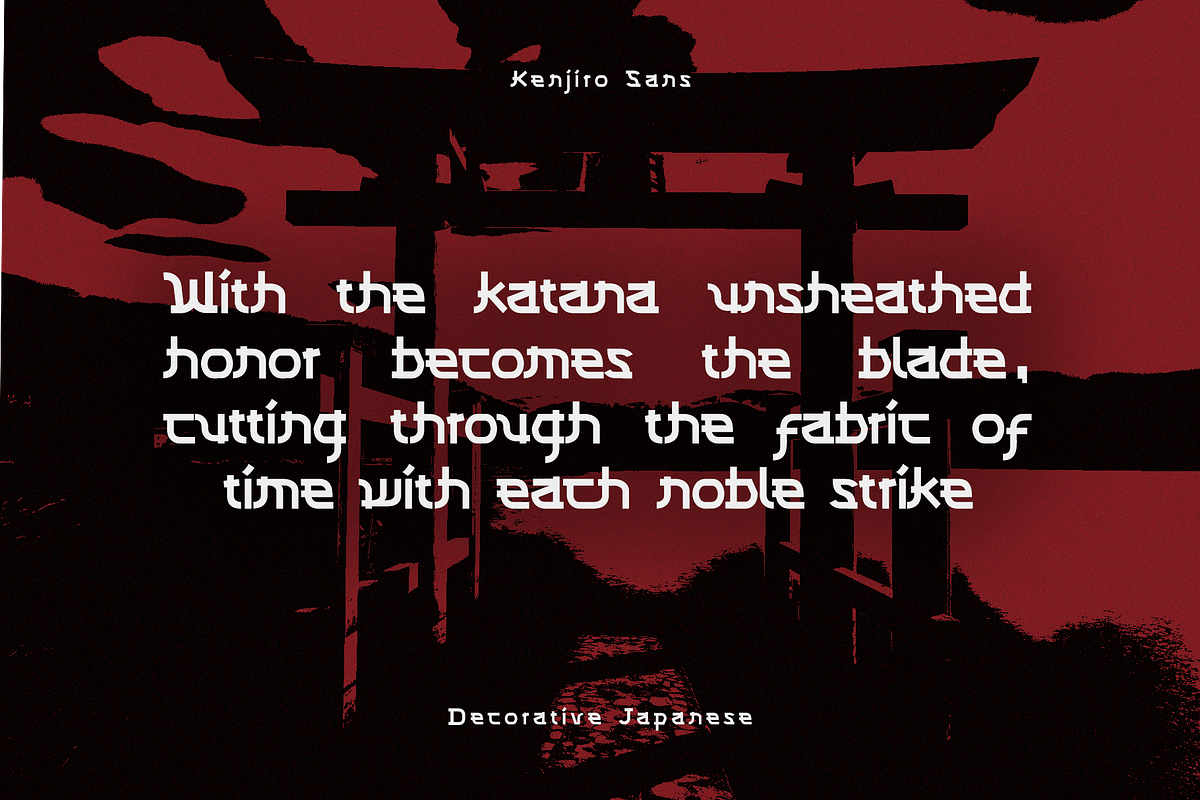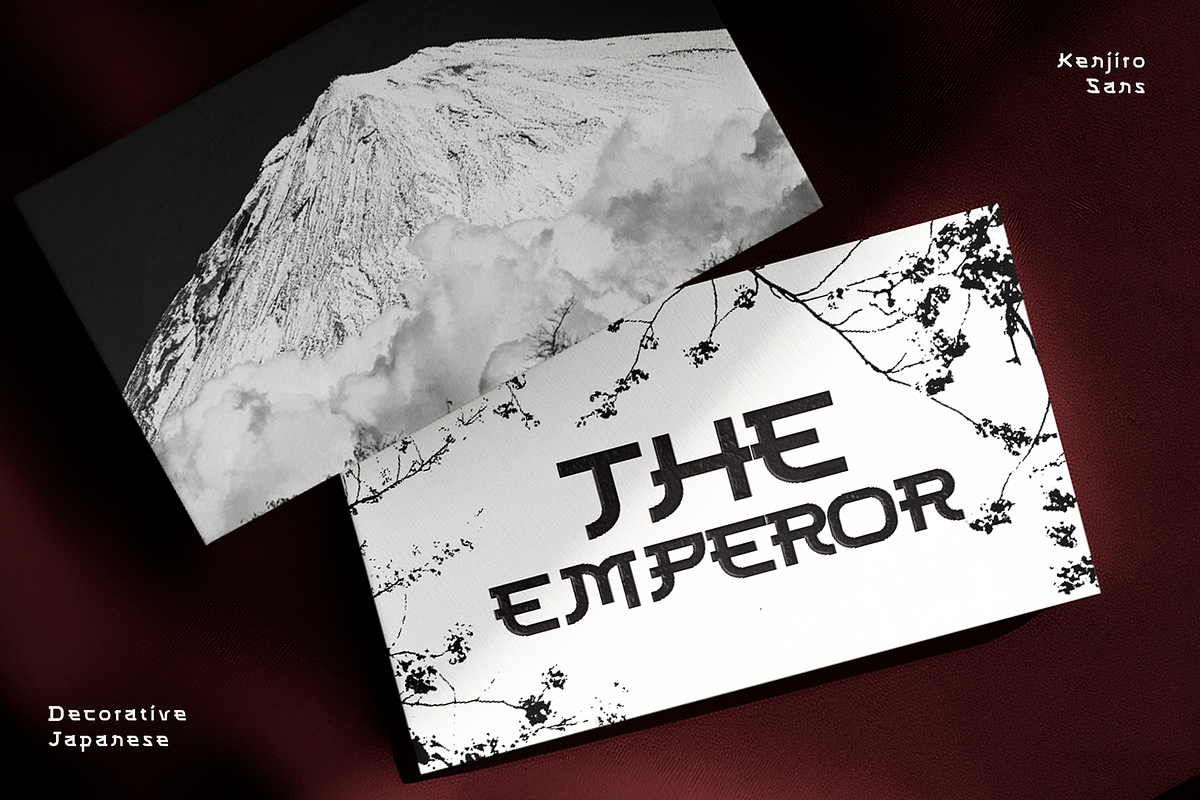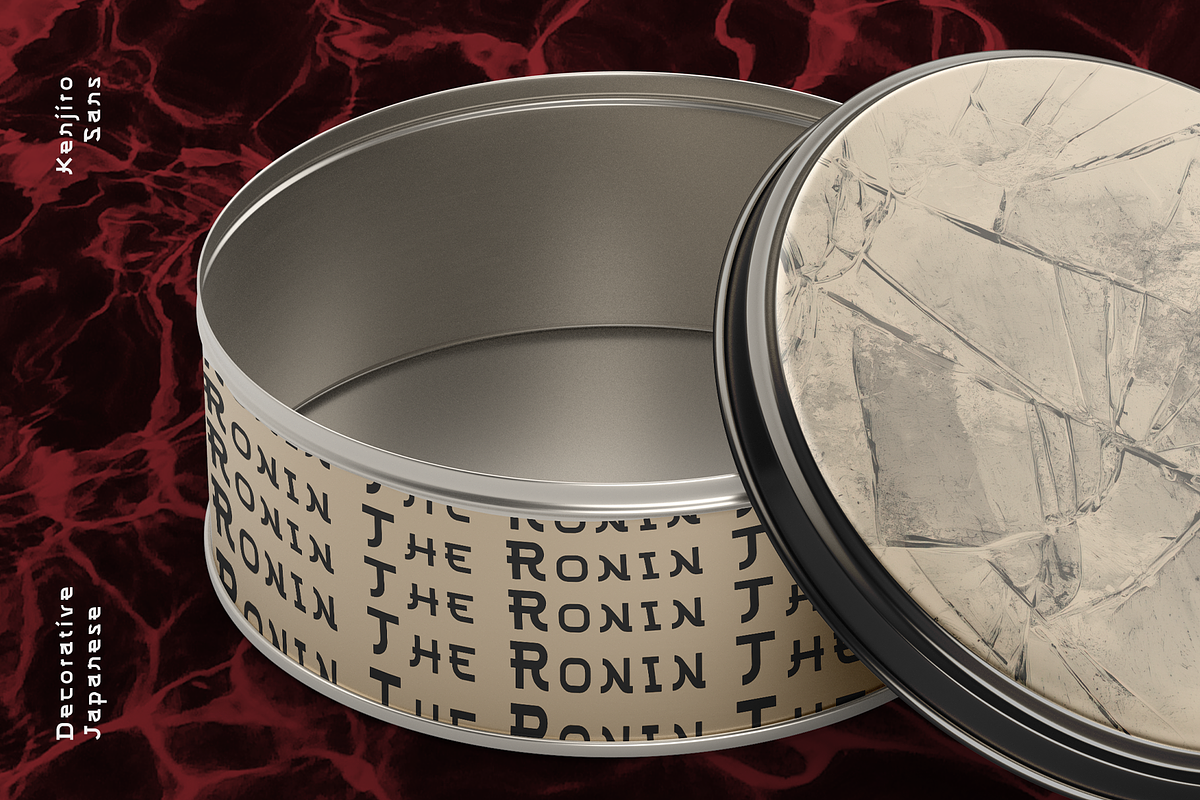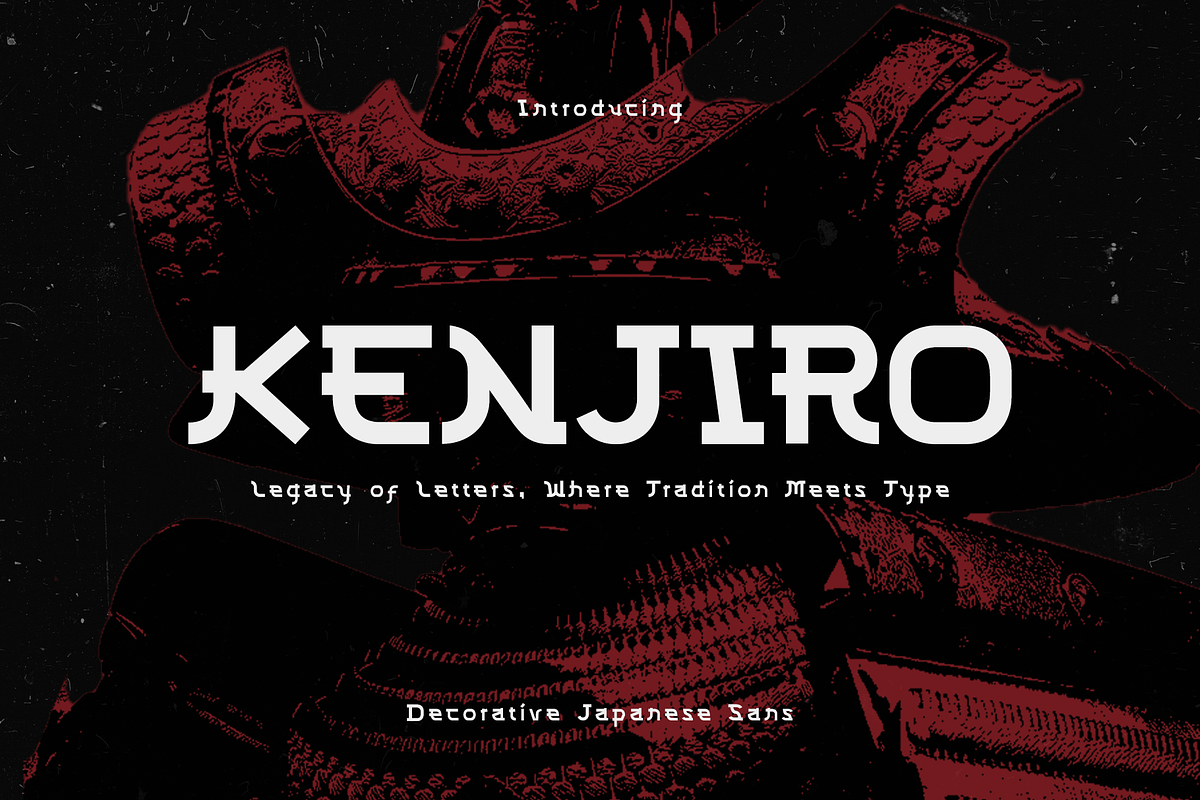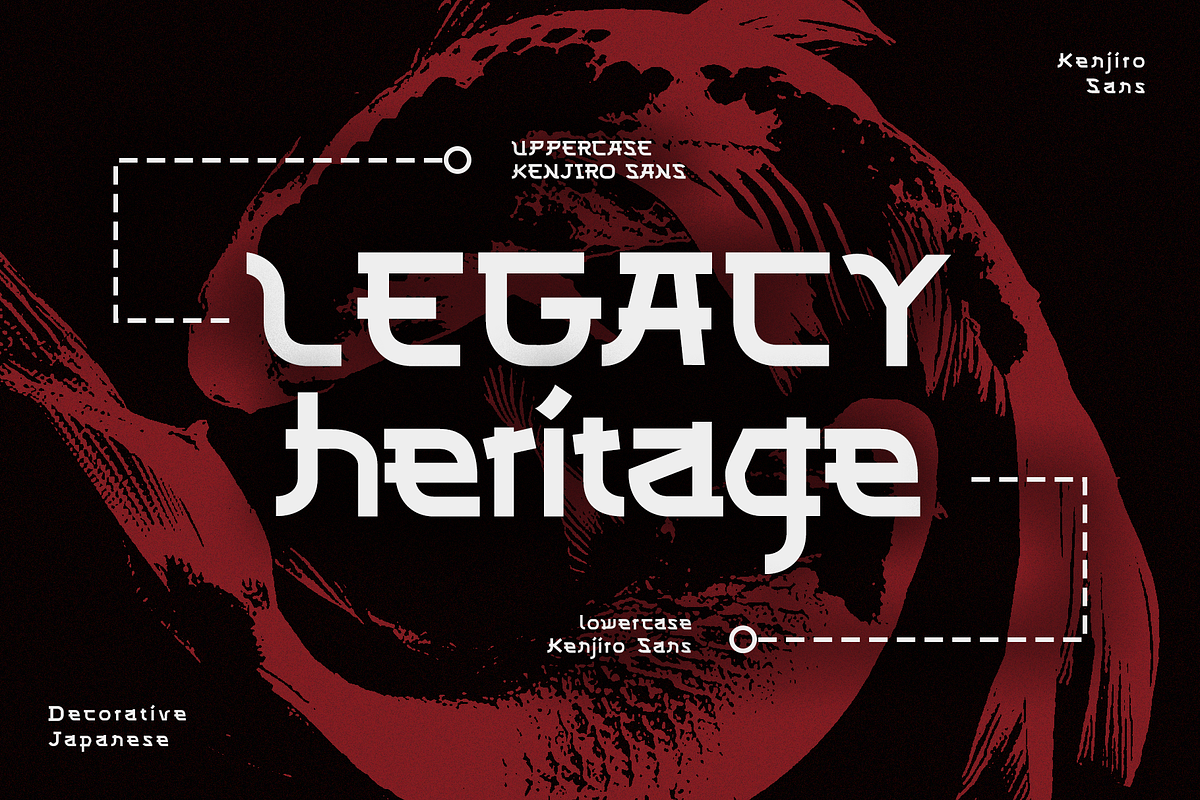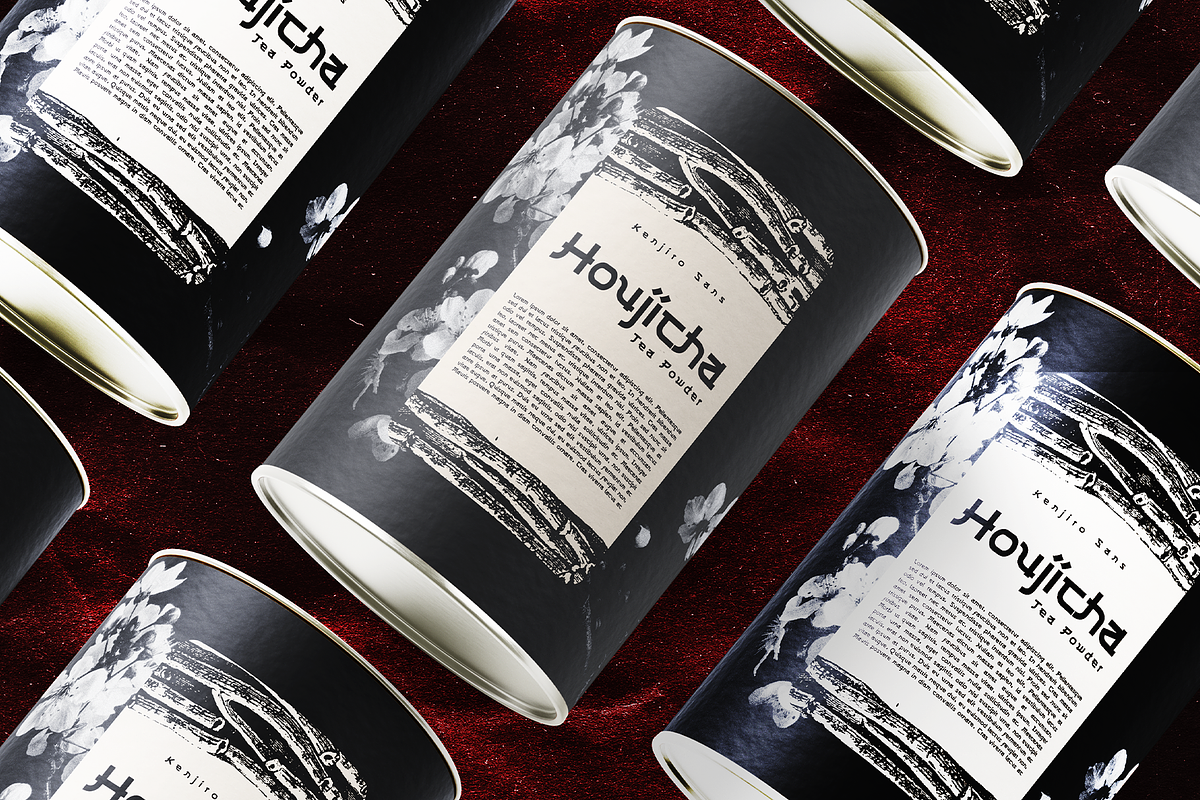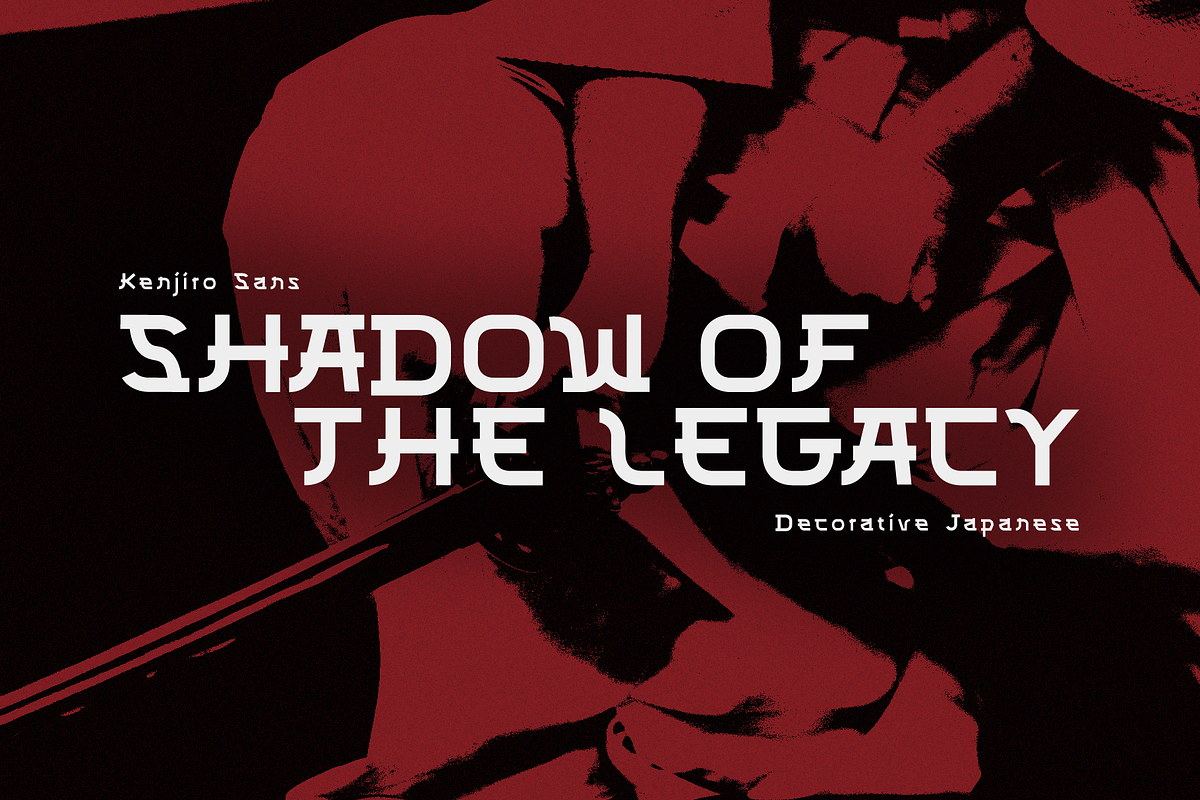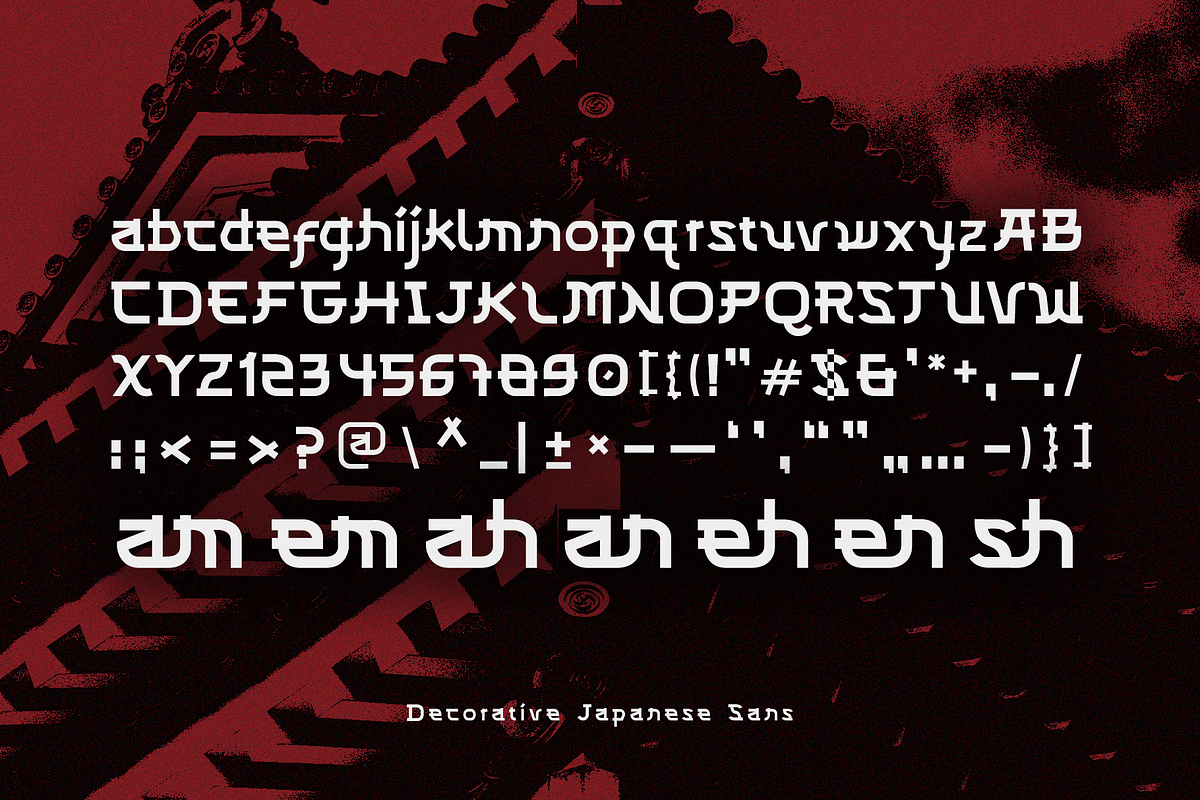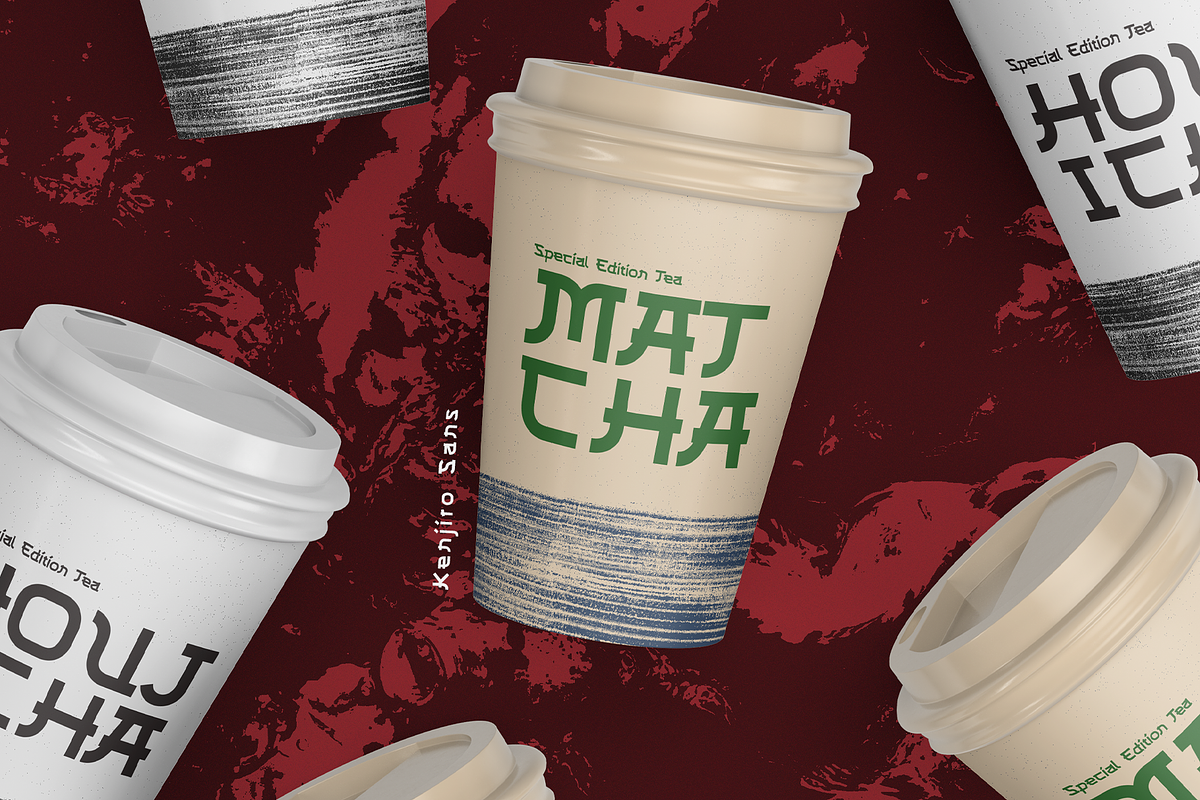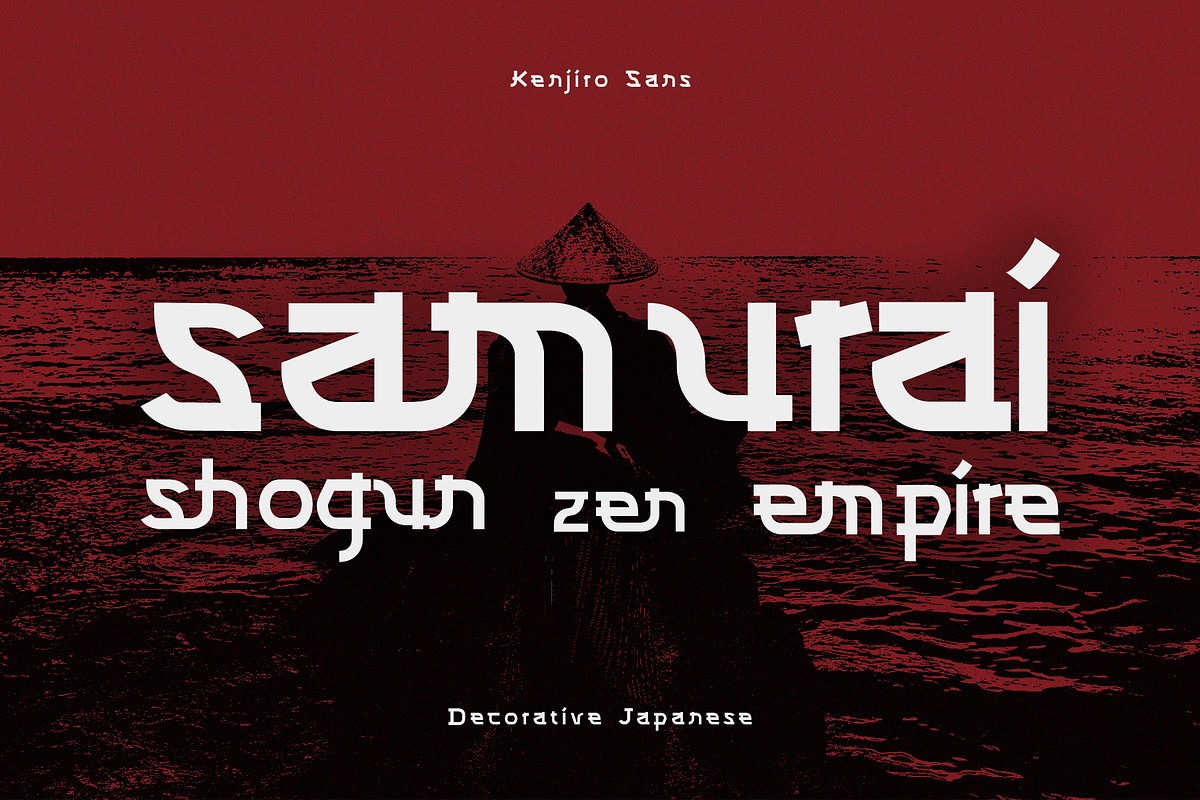
CF Kenjiro - Japanese Decorative
Kenjiro is a versatile font that could be used for a variety of purposes, such as branding, logos, packaging, and invitations. It would also be a good choice for headlines and posters, as its bold personality can make a real impact. Kenjiro is reminiscent of traditional Japanese ukiyo-e woodblock prints, which were often used for decorative purposes. Kenjiro is elegant and dynamic, with stylized strokes and a sense of movement. The characters are inspired by Japanese calligraphy,- but with a more playful and contemporary feel.
- Standard Character A-Z, a-z, 0-9, and symbols
- Ligatures and Alternates